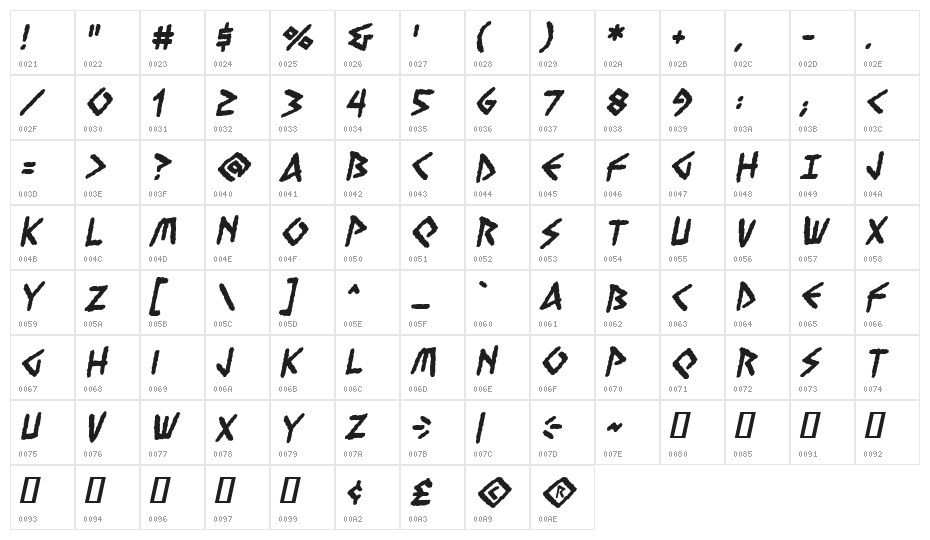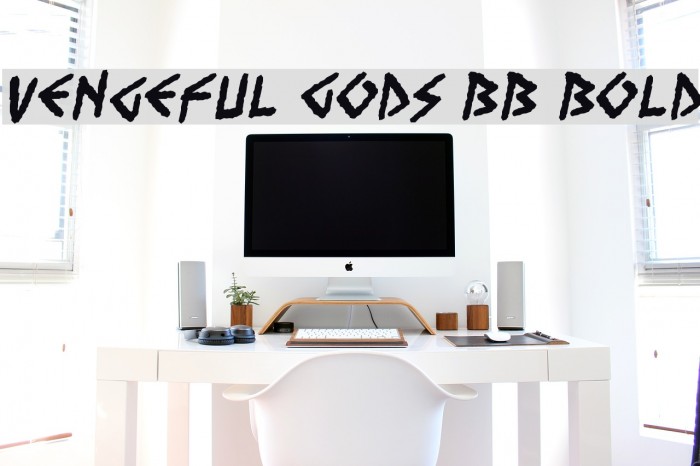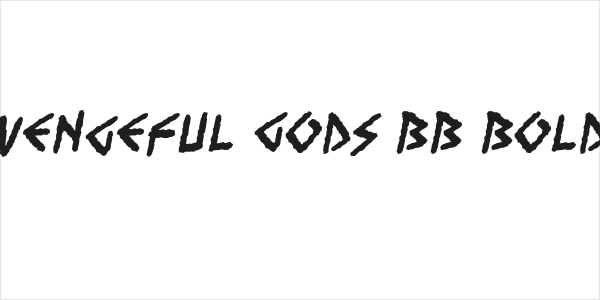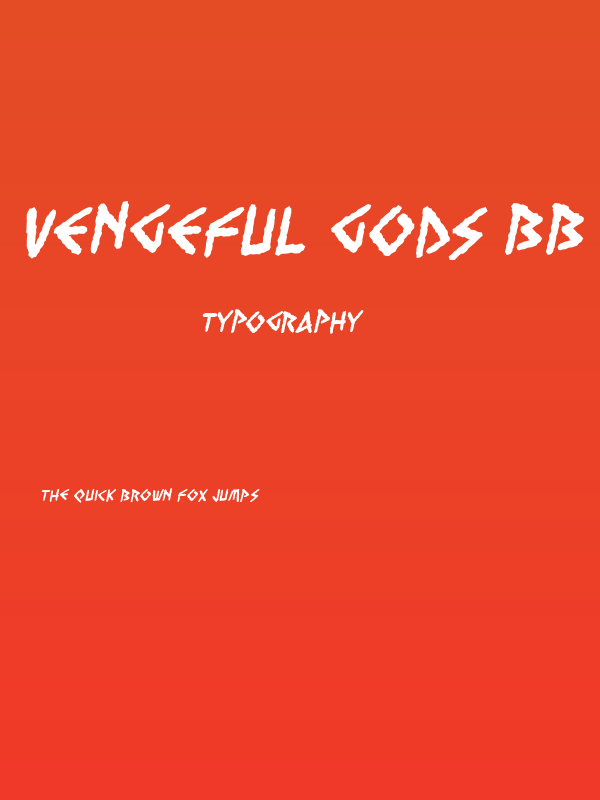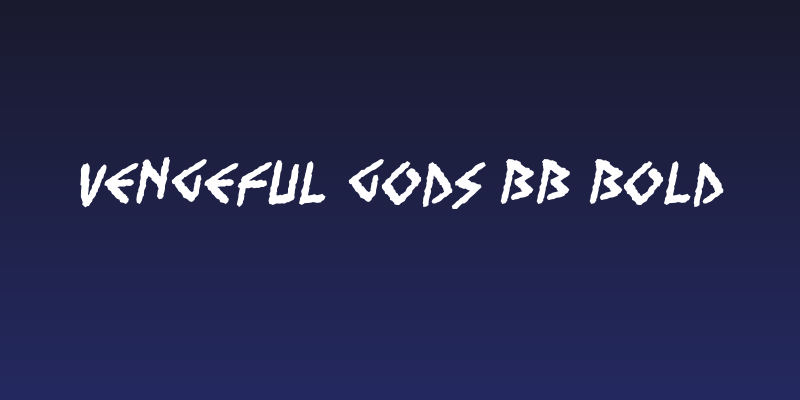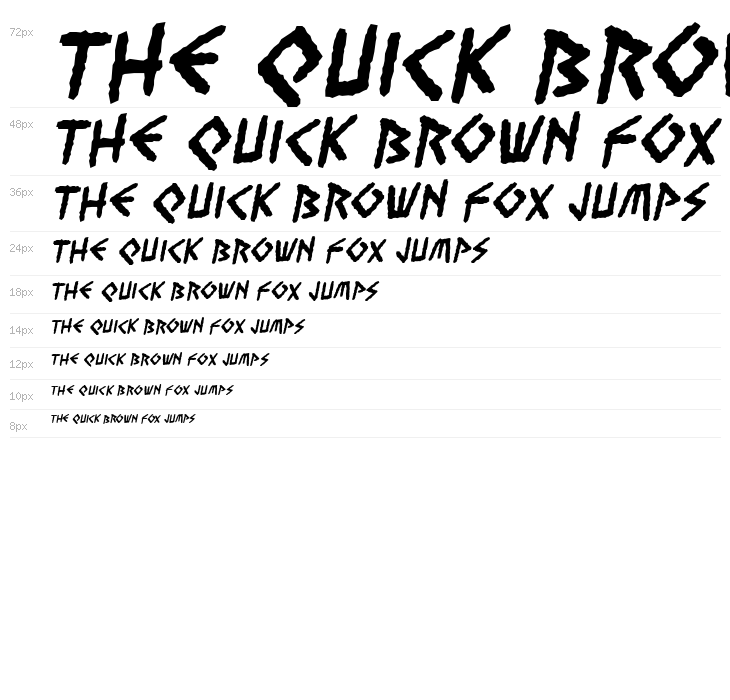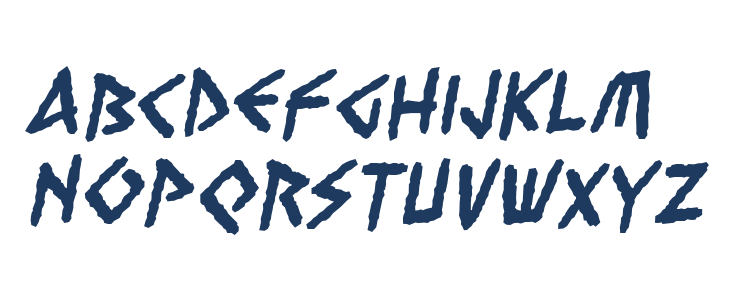
Vengeful Gods BB Bold Font
Vengeful Gods BB Bold Description
This font features a bold and aggressive style with sharp, angular edges and a hand-drawn appearance. The characters are irregular and dynamic, giving off a sense of movement and energy. The uppercase and lowercase letters maintain a consistent style, with exaggerated strokes and a slightly distressed look. Numbers and special characters follow the same bold and edgy design, making the font suitable for attention-grabbing headlines or thematic designs. The overall appearance is rugged and intense, perfect for projects that require a strong visual impact.
Proposed ProjectsIdeal for video game titles, movie posters, comic book covers, or any project needing a dramatic and intense typeface.